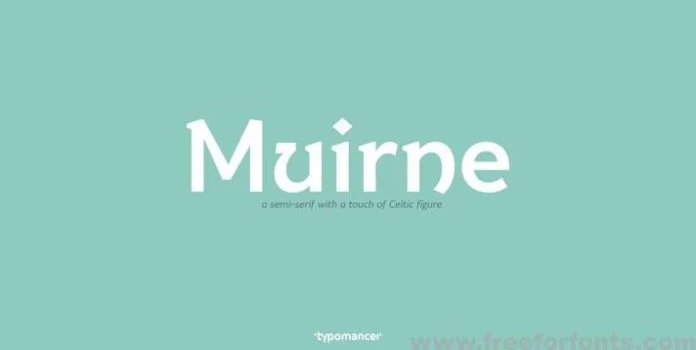
Muirne Font
Muirne Font is perfect for Celtic cultural projects, Irish heritage branding, mystical spiritual designs, ancient folklore publications, traditional craft packaging, medieval-themed events, Gaelic language materials, Celtic jewelry advertising, Irish pub signage, and authentic cultural celebration graphics.
Muirne Font is exciting because it authentically captures the mystical beauty and ancient wisdom of Celtic heritage through graceful letterforms that evoke Irish legends, spiritual connection, and timeless Celtic artistry with enchanting appeal. This spiritually crafted typeface combines traditional Gaelic design elements with contemporary functionality, making it perfect for brands that want to communicate cultural depth, mystical authenticity, and connection to ancient Celtic wisdom traditions.
The Muirne Font family includes elegant weights with Celtic-inspired character styling, featuring traditional Gaelic decorative elements and mystical flourishes. The font showcases ancient design details, Irish-influenced proportions, and authentic Celtic characteristics that create a comprehensive typographic system for cultural and spiritual applications.
The Celtic sophistication of Muirne Font makes it an invaluable resource for cultural institutions, spiritual organizations, and heritage brands that need typography capable of communicating Irish wisdom and Celtic authenticity. The font's mystical character helps establish connections with audiences seeking meaningful cultural experiences and authentic spiritual understanding of ancient Celtic traditions.
Cultural centers, Irish businesses, and spiritual practitioners consistently choose Muirne Font for its ability to convey Celtic mystique and Irish cultural sophistication through typography. The font excels in applications where establishing cultural credibility and spiritual authenticity are essential to brand positioning, making it particularly effective for heritage tourism, spiritual guidance, and cultural education targeting Celtic heritage enthusiasts.
This font's comprehensive character set includes Celtic-inspired letterforms, mystical numerals, Gaelic punctuation marks, and cultural symbols that support authentic Irish typography composition. The careful respect for Celtic design traditions ensures genuine cultural appearance while maintaining contemporary functionality for Muirne Font Free Download across all heritage and spiritual design applications.